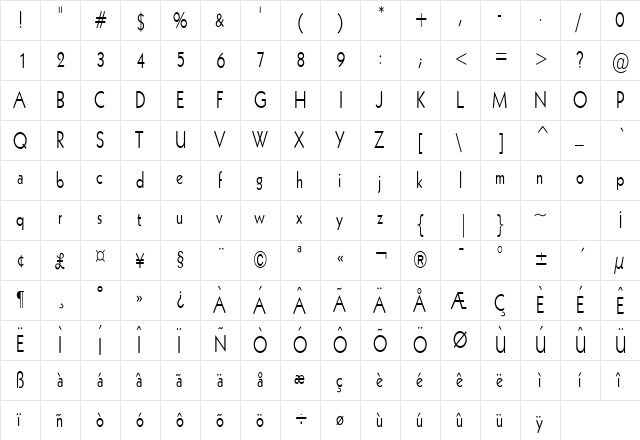
Geo 112 Thin Normal
Design Context for Geo 112 Thin Typeface
Geo 112 Thin takes a measured approach to typography — its balanced proportions and neutral character make it a reliable workhorse for both digital and print work. The delicate stroke weight brings airiness and refinement to layouts.